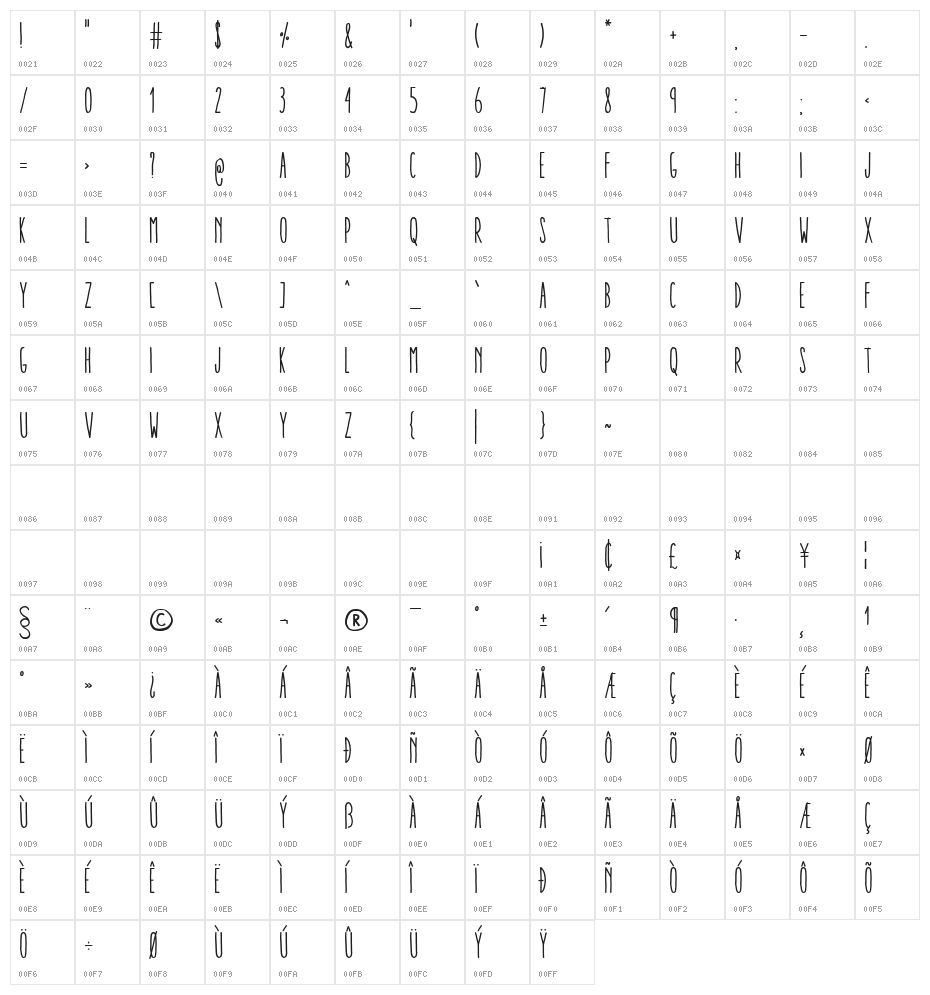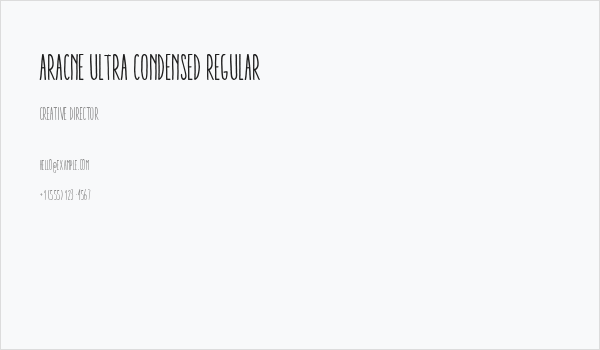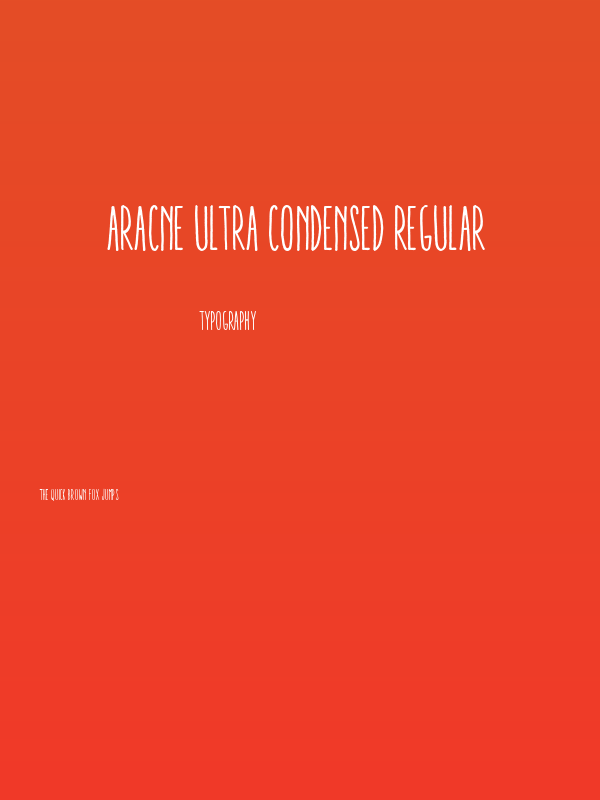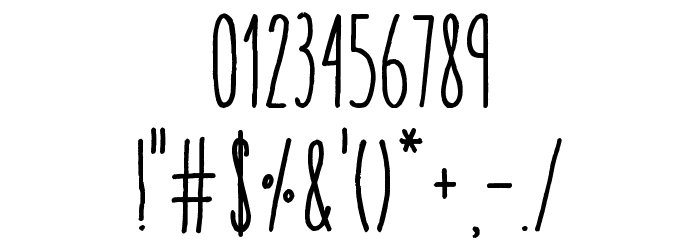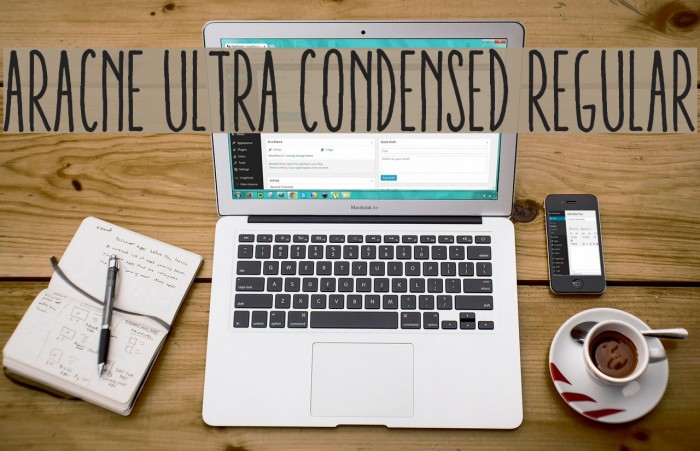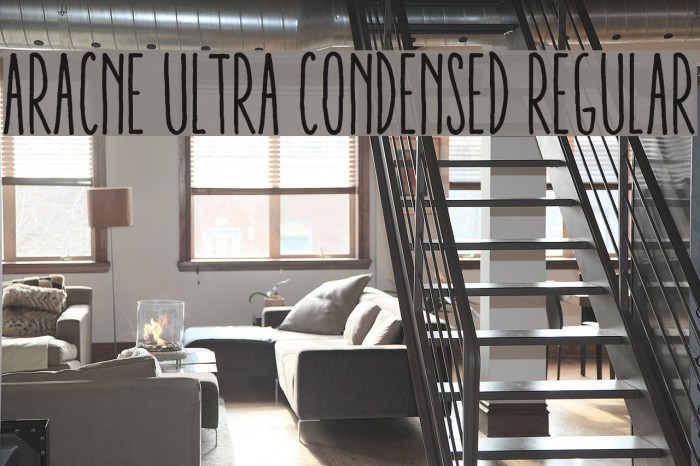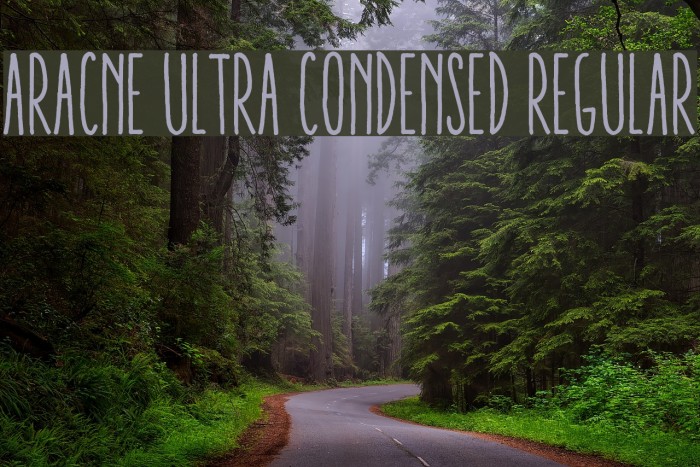
Aracne Ultra Condensed Regular Font
Aracne Ultra Condensed Regular Description
This font features an ultra-condensed style with tall, narrow characters that create a striking and modern appearance. The letters are evenly spaced with a consistent stroke width, giving it a clean and streamlined look. The uppercase and lowercase letters maintain a uniform height, enhancing its legibility despite the condensed form. The numerals and special characters follow the same design principles, ensuring a cohesive visual experience. This font's simplicity and elegance make it suitable for a variety of design applications.
| Proposed Projects | Ideal for posters, headlines, branding, and minimalist design projects where space is limited. |